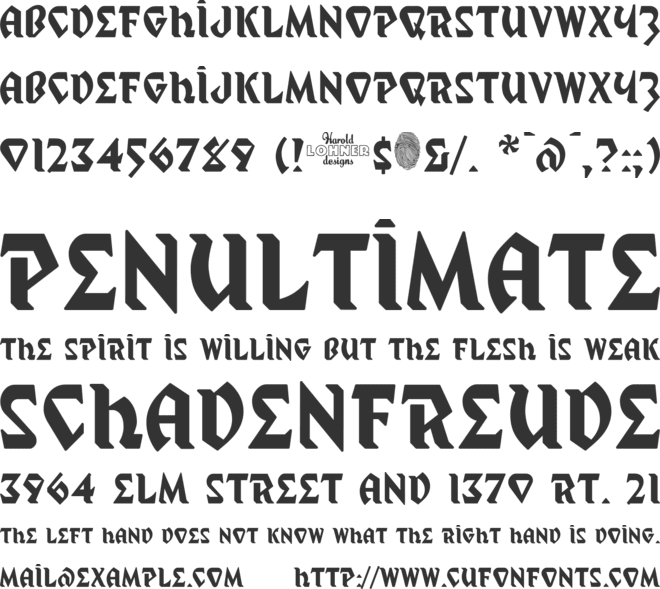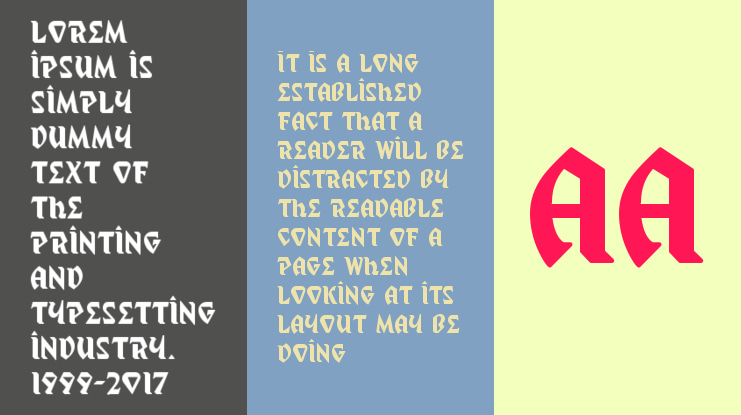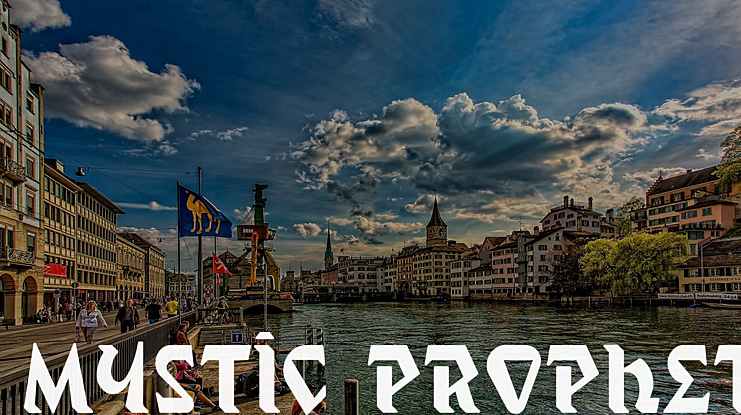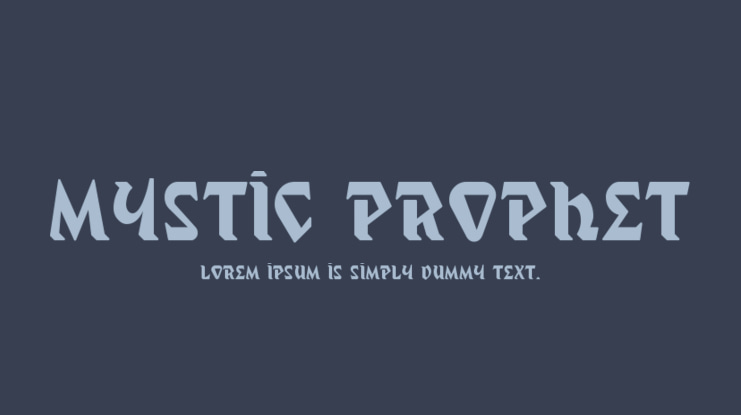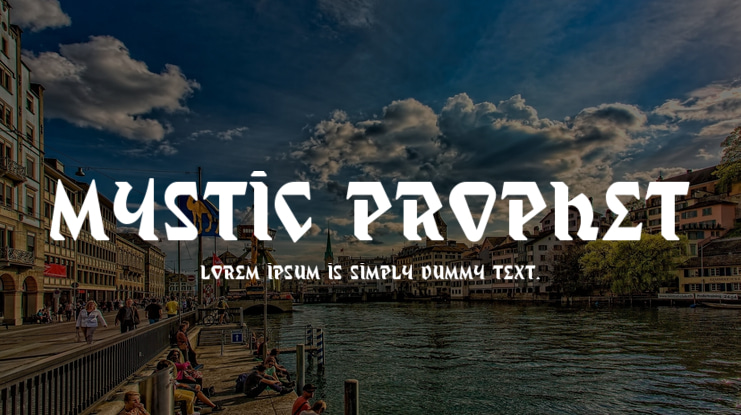
Mystic Prophet Font
MYSTIC PROPHET computer font v1.0 ©2002 Harold Lohner •  • www.haroldsfonts.com Based on the lettering on the Hasko talking board of the same name.